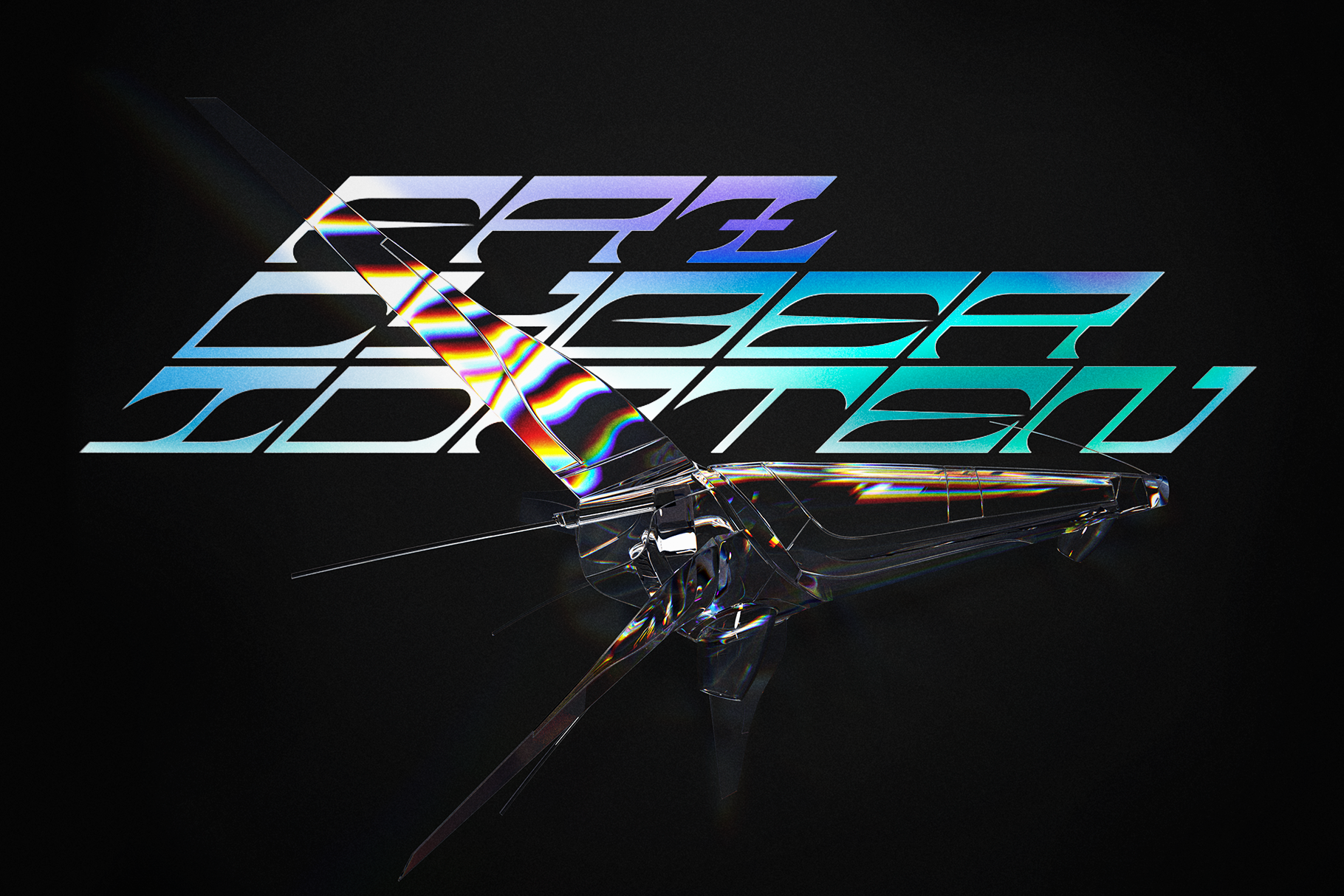
FRZ Cyber Idaten
Idaten (韋駄天 | いだてん) is one of the Buddhist deities famous for fast running
This is the experimental display typeface created by Feruz Makhmudov.
The 45° angle and futuristic geometric shapes give the font a fast and aggressive look. Cyber Idaten will be great for use in posters, headlines, logos, or any other of your creativity!